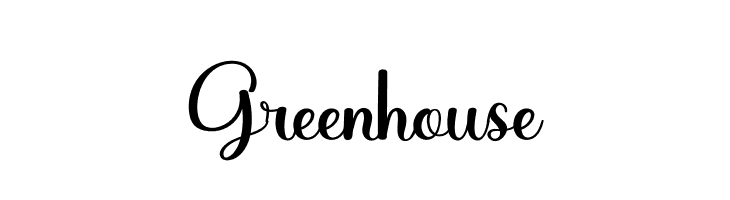
A bold, decorative font with stars and stripes pattern, ideal for patriotic themes.
A bold, italic serif font with a strong, dynamic presence.
An elegant script font with flowing, cursive style and decorative flourishes.
A playful font with bold letters inside cartoon ghost characters.
A decorative font made of interconnected cubes, offering a 3D geometric style.
A fluid, cursive script font with a handwritten appearance.
A bold, 3D italic font with a futuristic and dynamic style.
A playful, bone-themed font with a bold and distinctive style.
A bold, blackletter-inspired font with intricate detailing and dramatic flair.
A whimsical, cartoonish font with bold, rounded characters featuring playful elements.
设计师偏爱 Missing man out, Blacker Text Bold Italic, CRU-Dissaramas-Italic, KR Ghostly Message and FE-BoxinaBox,因为其造型干净、适用范围广—— 从品牌识别到落地页、海报都能胜任。